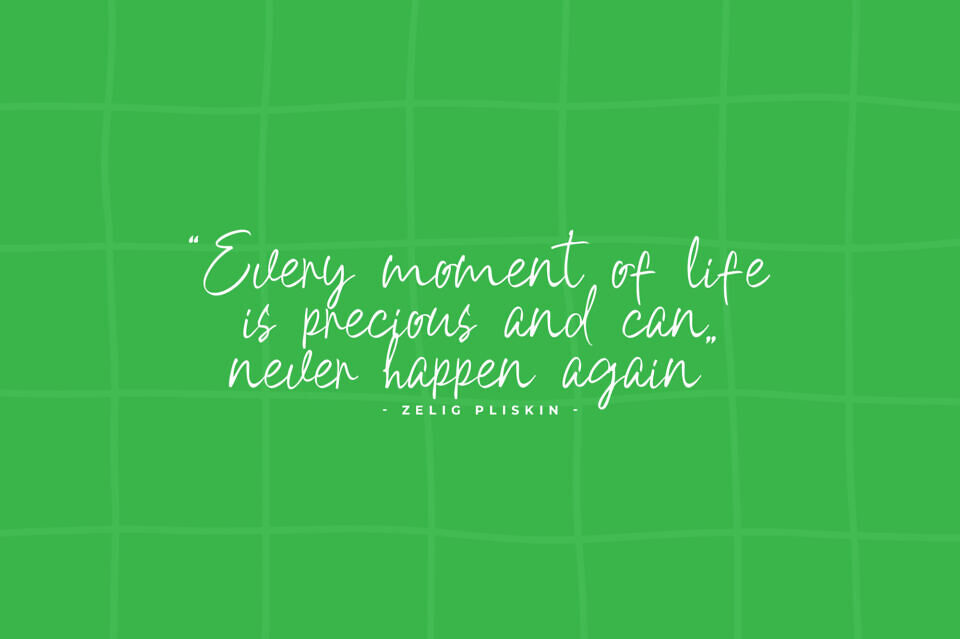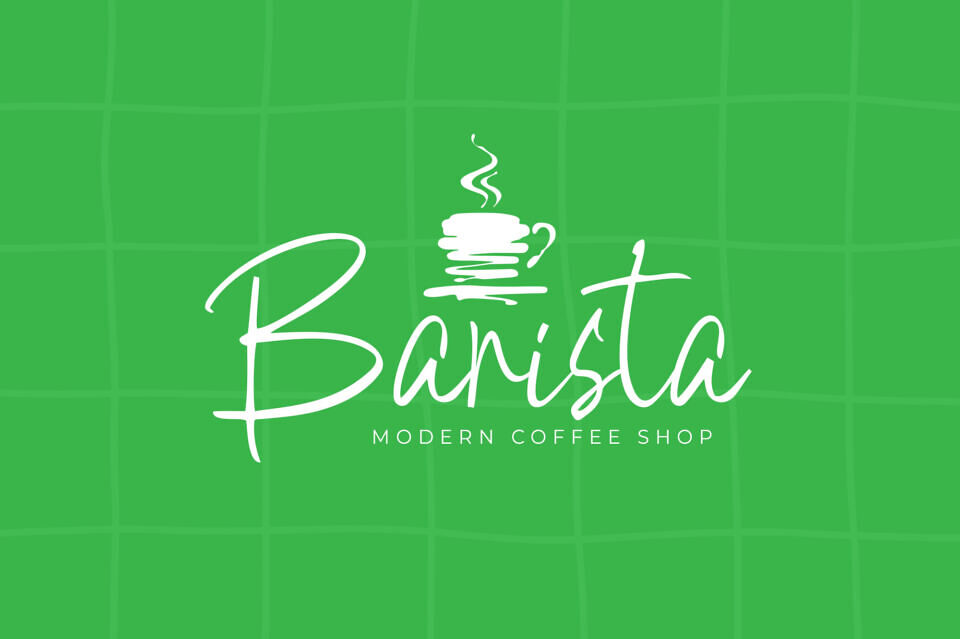
Vegan Days is a modern handwritten script font featuring clean, flowing strokes that emulate natural penmanship. Its elegant monoline lines and subtly slanted letterforms create a casual yet refined appearance, perfect for adding a personal touch to any design.
Ideal for branding, blog headers, social media graphics, quotes, invitations, product packaging, and minimalist logos, Vegan Days balances warmth and authenticity with sleek, contemporary style.